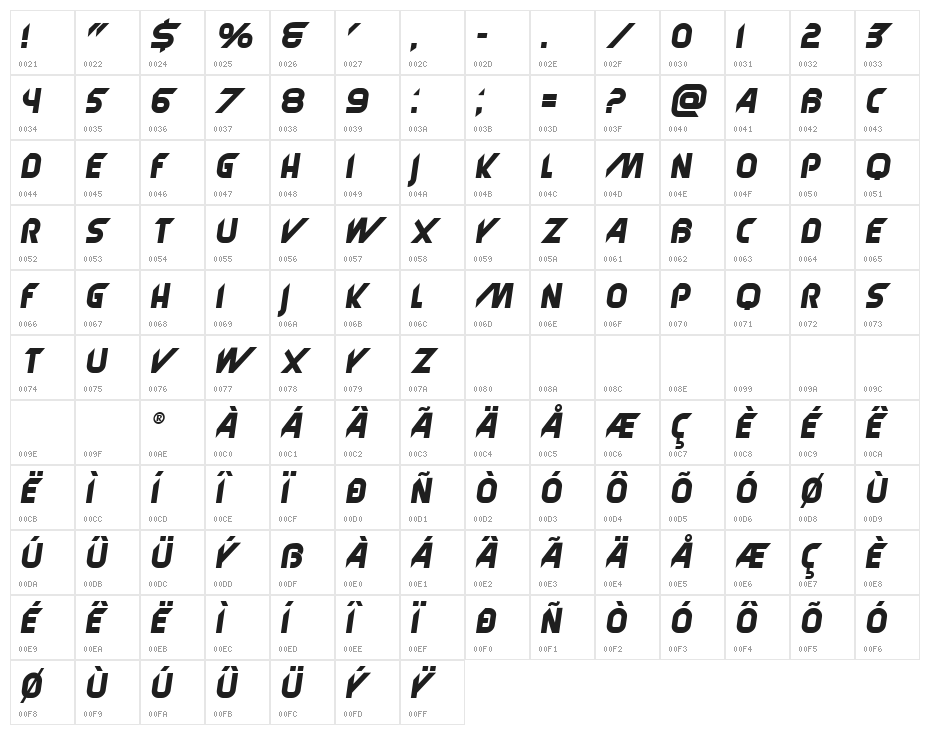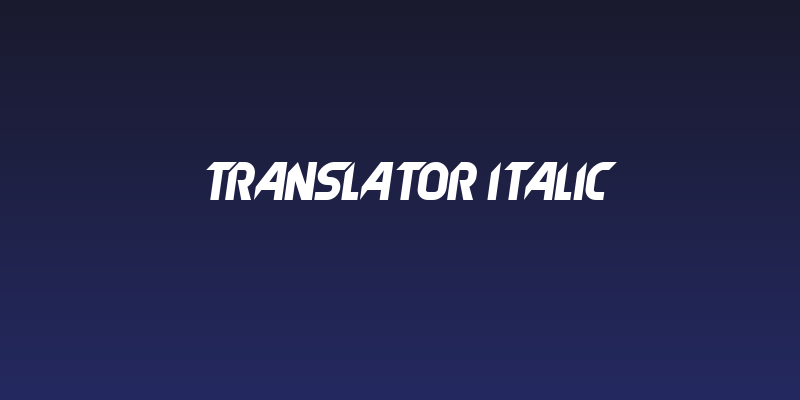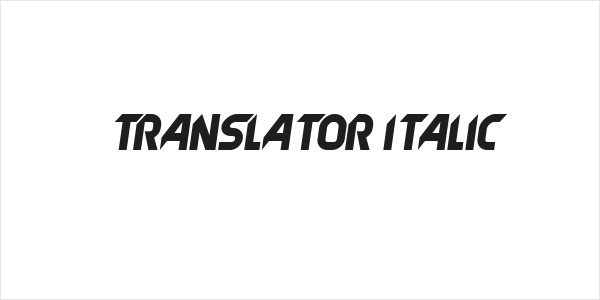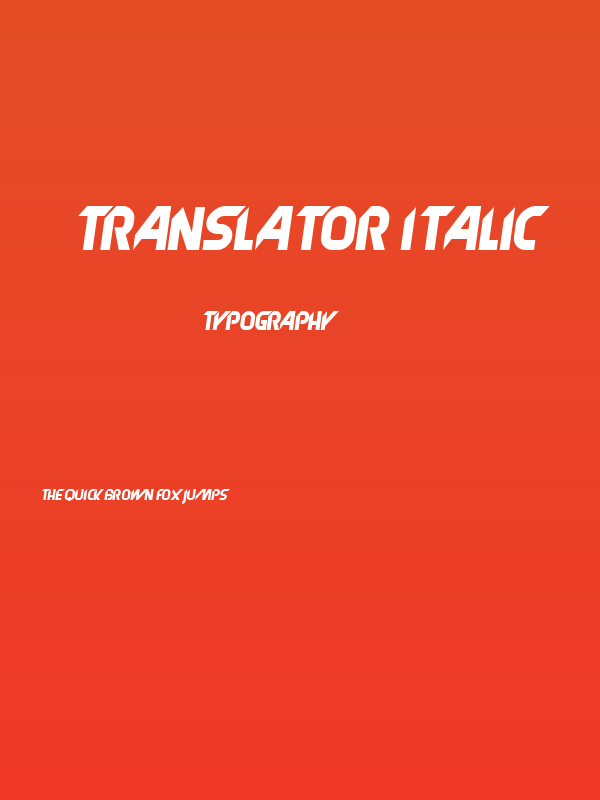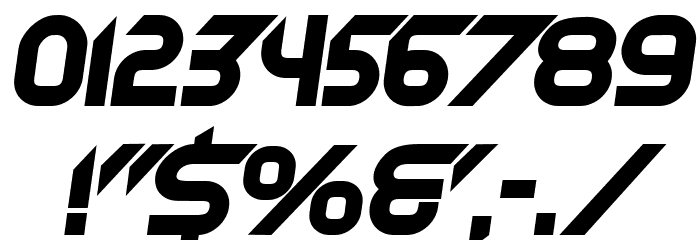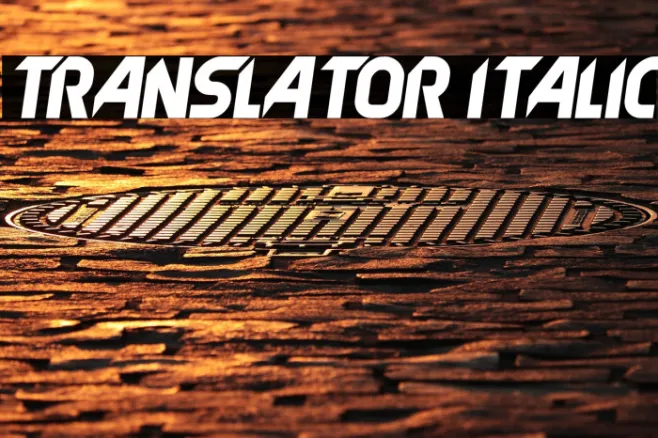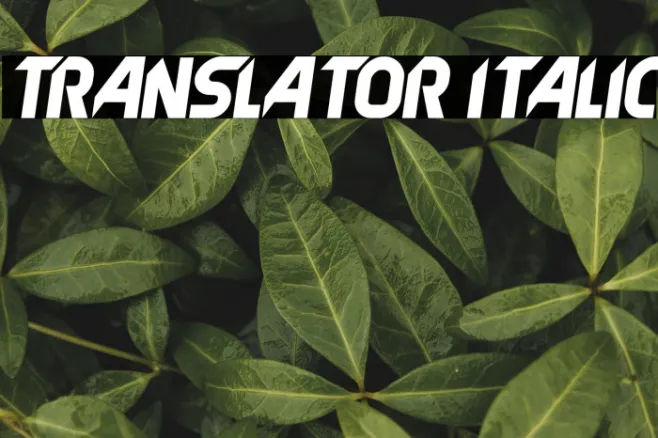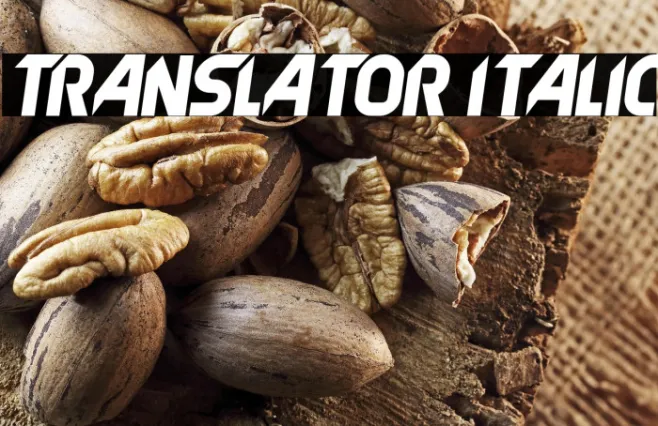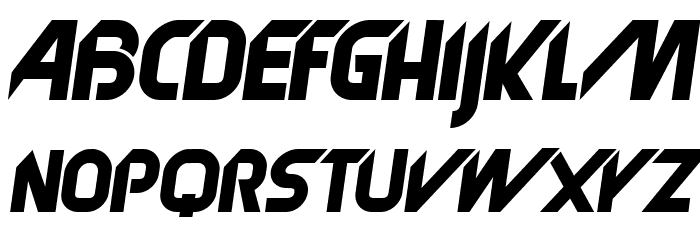
Translator Italic Font
Translator Italic Description
This font features a dynamic and modern italic style with sharp, angular edges that convey a sense of speed and movement. The uppercase and lowercase letters maintain a consistent slant, enhancing the italicized effect. The numbers and special characters are designed to match the overall aesthetic, providing a cohesive look. The bold weight of the font adds to its striking appearance, making it ideal for attention-grabbing headlines or branding materials. The character spacing is tight, which contributes to its compact and impactful presence. The high contrast between the thick and thin strokes further emphasizes its boldness and modernity.
| Proposed Projects | Ideal for sports branding, automotive advertisements, dynamic posters, and modern logo designs. |